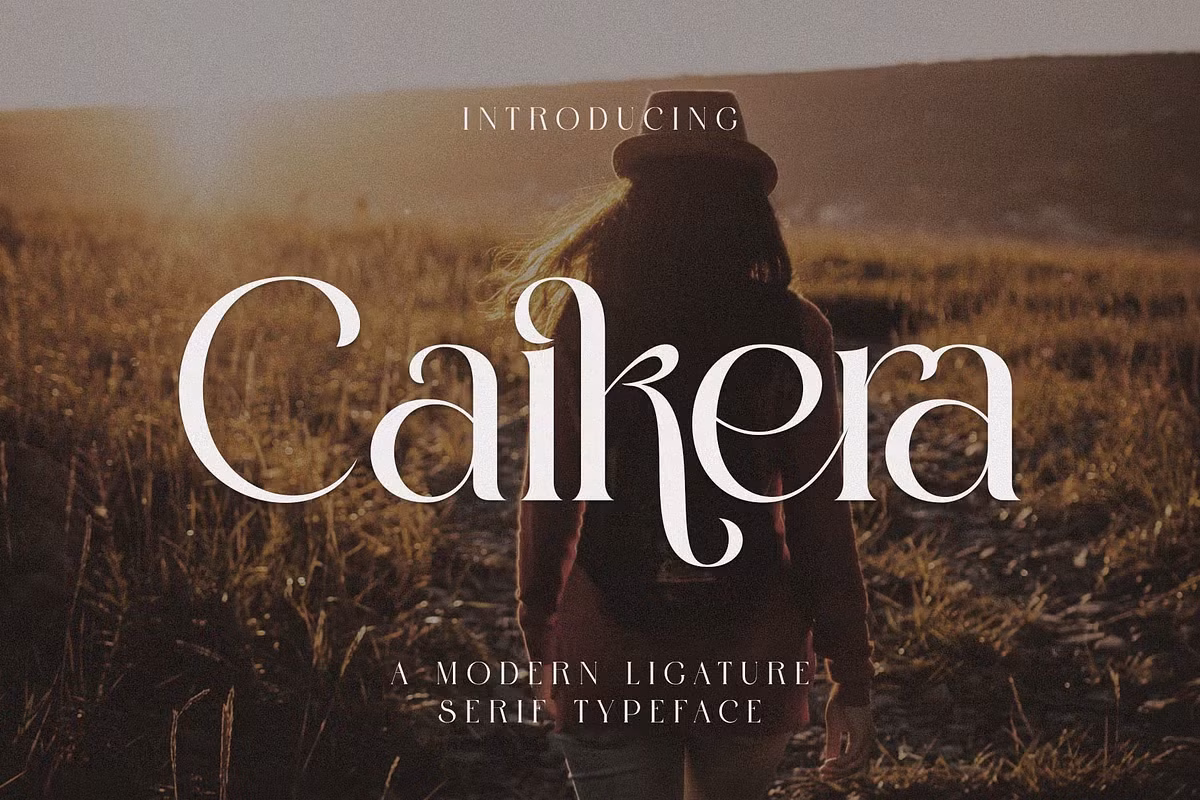
Caikera Modern Ligature Serif Font Free Download is a sophisticated and trend-forward typeface that blends classic serif elegance with striking modern ligatures. Designed to make a visual impact, Caikera is perfect for high-end branding, editorial layouts, fashion lookbooks, and luxury product packaging.
The font features unique ligature combinations and stylish alternates that give your typography a custom-designed feel. Every letterform is crafted with attention to detail, offering both readability and artistic flair—ideal for designers who want to create work that feels both polished and expressive.
Whether you're working on a logo, magazine spread, or website header, Caikera Modern Ligature Serif Font Free Download adds a contemporary, upscale tone to your project. Feel free to test it personally, but a commercial license is required for any professional or paid usage.
Bring modern elegance and typographic sophistication to your next design with the refined beauty of Caikera.